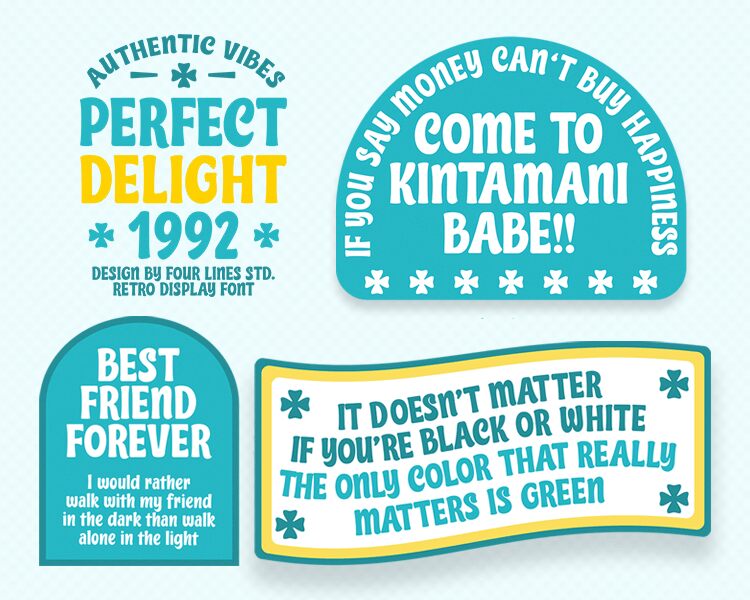
Perfect Delight 1992
Perfect Delight 1992 by Four Lines is a free display font with casual and approachable letter shapes. Its style is inspired by retro typography with all its classic, yet expressive look. The lack of serifs gives the typeface an overall modern retro vibe that is fun and friendly to read, even in its smallest available sizes.
Posters, album covers, greeting cards, invitations, branding projects, quality labels/tags/stamps, magazines headlines; all seem like excellent potential usage ideas for Perfect Delight 1992. Also in multi-lingual logo designs for businesses from restaurants to simple cafés or self-owned shops.